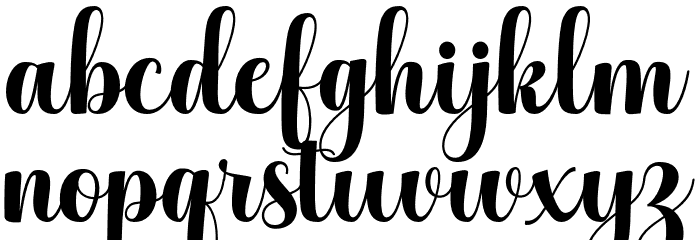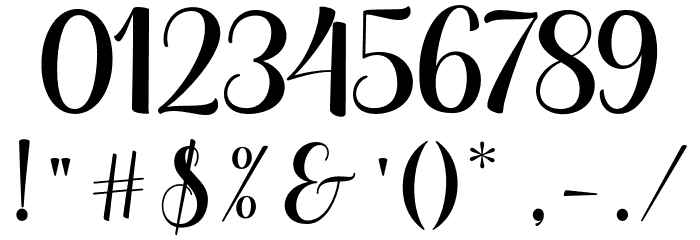
HelloGeorginaScript Font
This script font exudes elegance and sophistication with its flowing, cursive style. The uppercase letters are tall and graceful, featuring delicate loops and swirls that add a touch of whimsy. The lowercase letters maintain a consistent flow, with smooth connections between characters, creating a harmonious and fluid appearance. The numerals are stylish and complement the overall aesthetic, while the special characters are crafted with the same attention to detail. This font is perfect for adding a personal and artistic touch to any design project, making it ideal for invitations, branding, and decorative purposes.
An elegant and sophisticated script font with flowing, cursive style.
- Font: HelloGeorginaScript
- Proposed Projects: Ideal for wedding invitations, branding, greeting cards, and decorative designs.
- Category: Script
- Use Case: Logos, Invitations, Decorative text